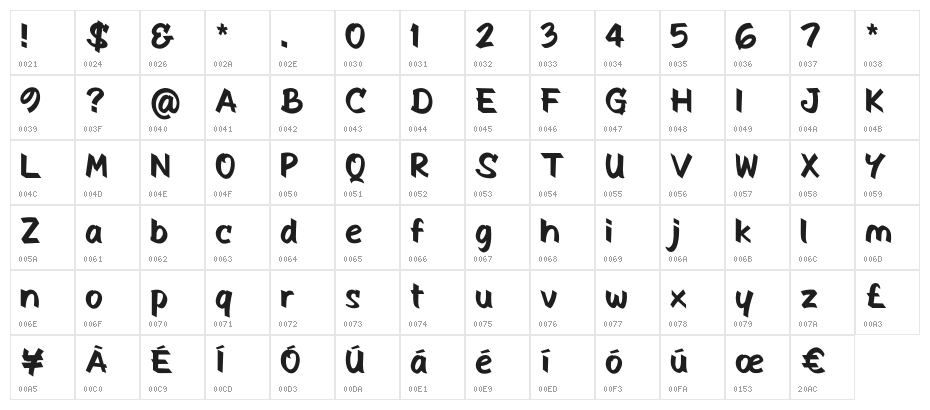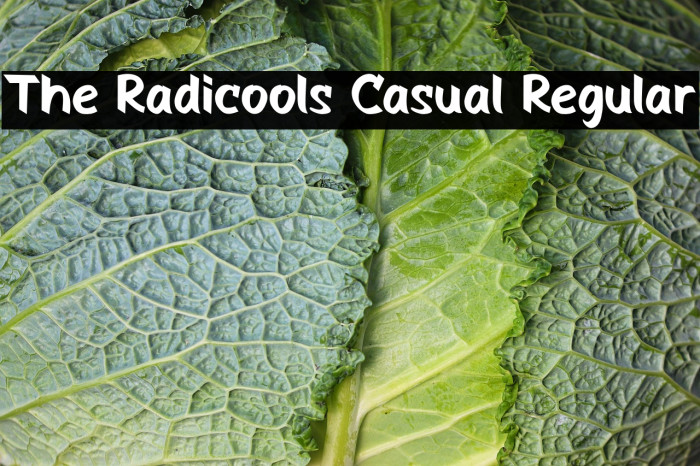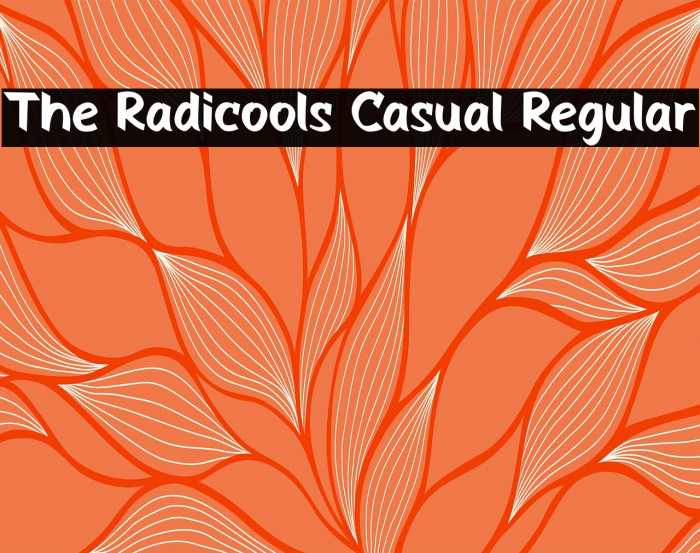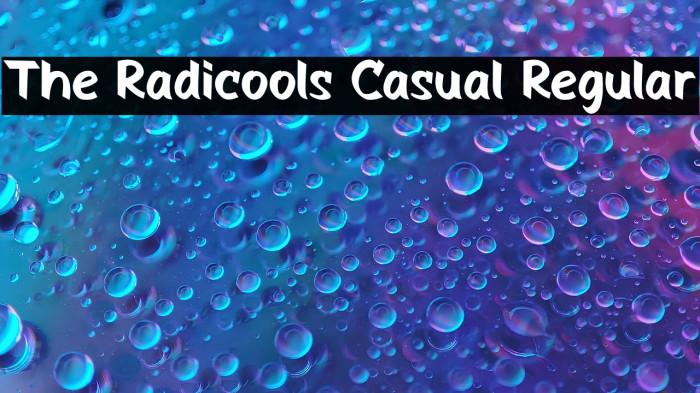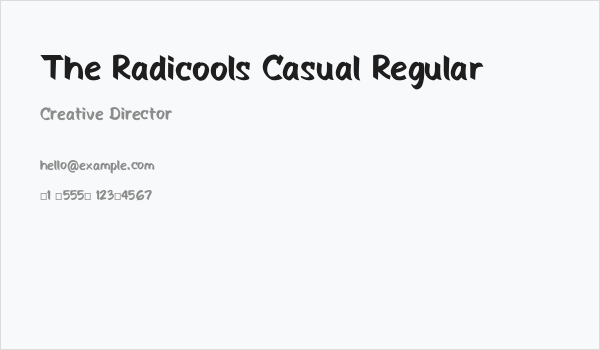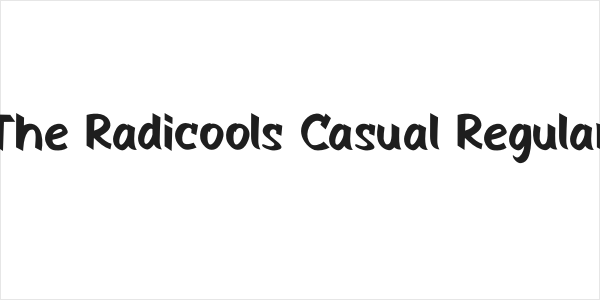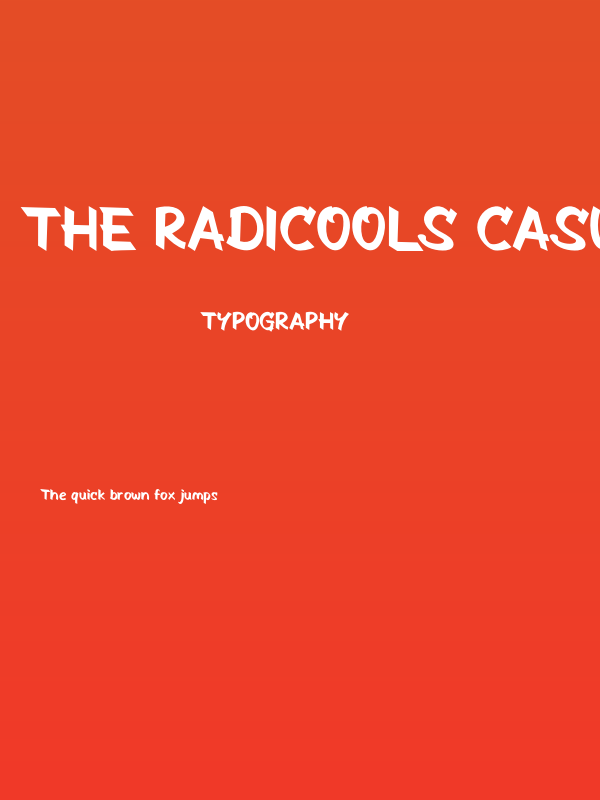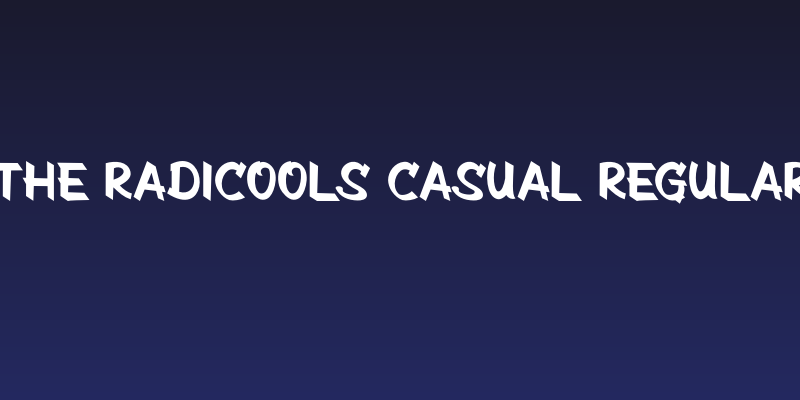
The Radicools Casual Regular Font
The Radicools Casual Regular Description
This font features a playful and dynamic style, characterized by its bold and slightly irregular letterforms. The uppercase letters have a strong presence with sharp angles and unique cutouts, giving them a distinctive look. The lowercase letters maintain a consistent flow, with rounded edges that add a touch of friendliness. The numerals are bold and easily readable, matching the overall energetic vibe of the font. Special characters are creatively designed, adding to the font's quirky personality. This font is perfect for projects that require a fun and informal touch.
| Overall Style | Playful, Energetic |
| Proposed Projects | Ideal for children's books, playful branding, event posters, and casual invitations. |